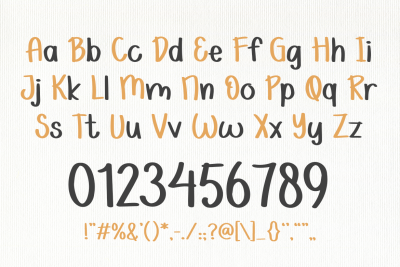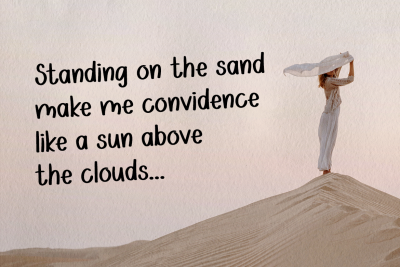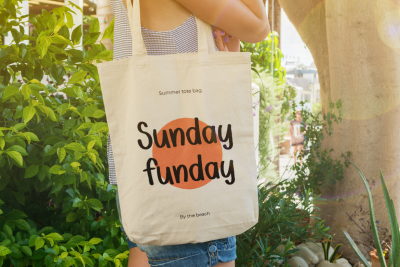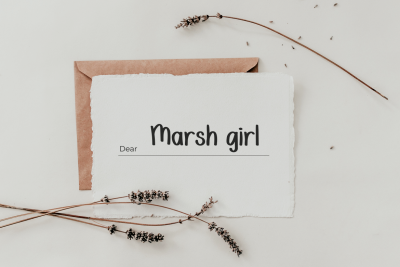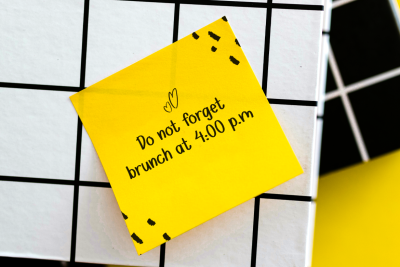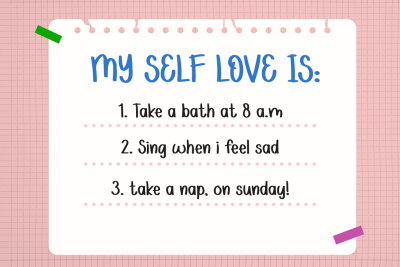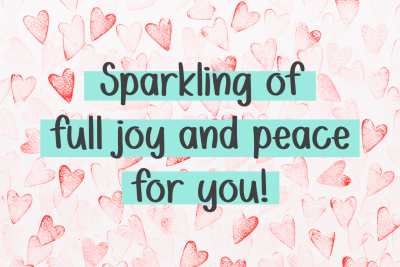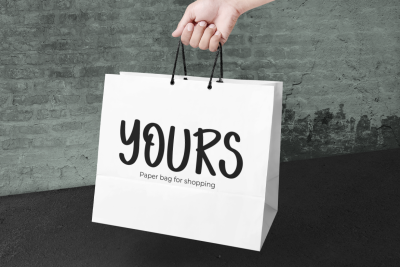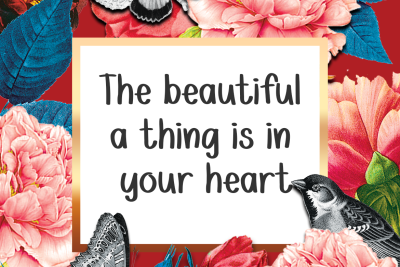
Cute Font MOCCALATTE is a delightful and playful typeface that brings warmth and charm to any design. Its soft curves and rounded strokes create an inviting and friendly look, making it perfect for projects that need a touch of sweetness and creativity. Moreover, inspired by handwritten styles, MOCCALATTE evokes a sense of comfort, much like a cozy cafรฉ atmosphere. Whether youโre designing a personal blog, crafting social media posts, or working on branding materials, this font effortlessly adds a cheerful and lighthearted touch.
Furthermore, the organic and flowing letterforms of MOCCALATTE ensure excellent readability while maintaining a unique personality. It strikes the perfect balance between casual elegance and whimsical fun, making it versatile for a wide range of applications. Additionally, the fontโs smooth and modern style makes it stand out while remaining easy on the eyes. If youโre looking for a typeface that exudes friendliness and warmth, MOCCALATTE is undoubtedly the perfect choice.
Cute Font MOCCALATTE Suitable For:
1. Branding & Logo Design
MOCCALATTE is ideal for businesses that want to appear approachable and fun. For instance, bakeries, coffee shops, handmade product brands, and childrenโs boutiques can benefit from this fontโs playful and welcoming nature.
2. Social Media & Content Creation
For bloggers, influencers, and content creators, MOCCALATTE adds a personal and cute touch to Instagram posts, Pinterest graphics, and YouTube thumbnails. Consequently, it helps create an engaging and friendly aesthetic that resonates with audiences.
3. Stationery & Invitations
From wedding invitations to baby shower announcements, MOCCALATTE enhances any stationery design with its warm and inviting style. As a result, itโs perfect for greeting cards, thank-you notes, and event flyers that require a personal touch.
4. Childrenโs Books & Educational Materials
The fontโs soft, rounded look makes it an excellent choice for childrenโs books, workbooks, and learning resources. Moreover, it helps create a joyful and easy-to-read experience for young readers.
5. Product Packaging & Labels
Handmade and organic brands can use MOCCALATTE for packaging, tags, and labels. Since it conveys a sense of authenticity and friendliness, it makes products more appealing to customers.
Cute Font MOCCALATTE is a must-have for anyone looking to infuse joy and personality into their designs. Whether youโre working on digital or print projects, its versatility and charm certainly make it a valuable addition to any creative toolkit.